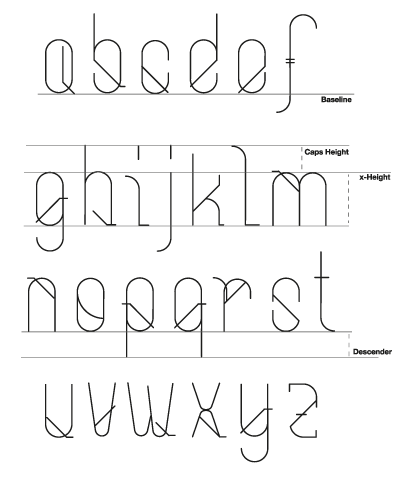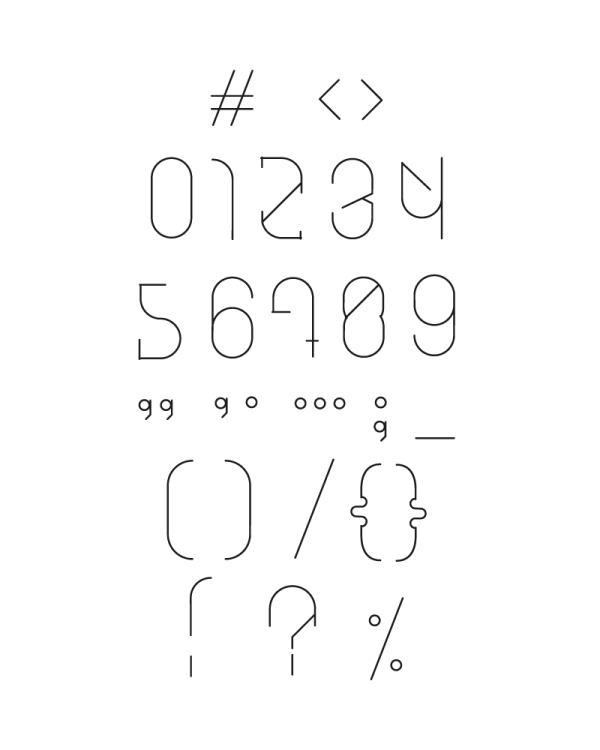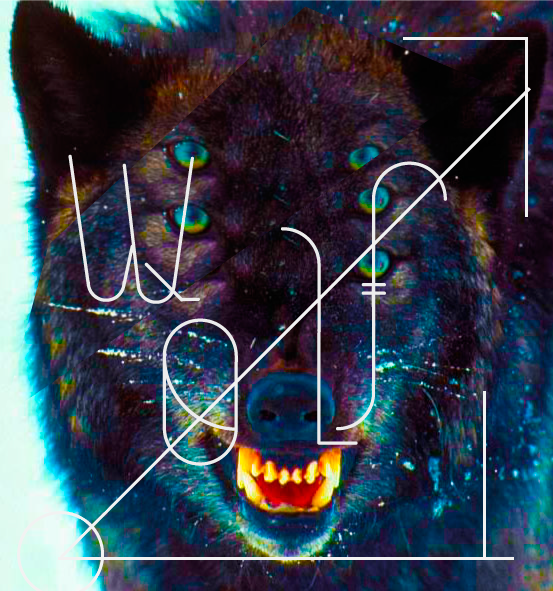
Bouh
With this source tried to do something more experimental, therefore I opted for a condensed font and light, designed for posters and logos.
Designer: Hugo Portinha